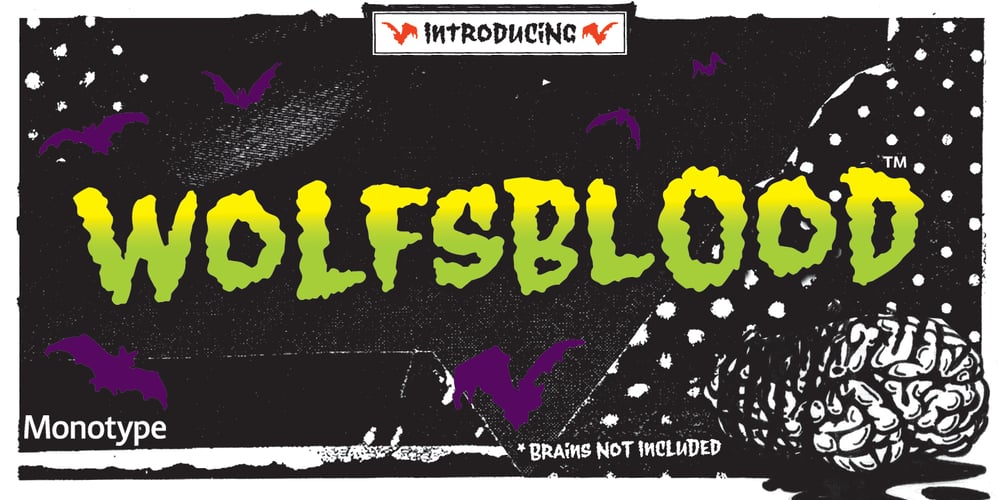
Wolfsblood Font Family was designed by Jim Ford and published by Monotype. Wolfsblood contains 1 styles and family package options. Wolfsblood is a new display face by Jim Ford, adapted from hand-lettered logos spawned by punk rock bands like The Misfits and Bad Brains. The style can be traced back further to Hollywood and the explosion of low-budget exploitation, horror and sci-fi films, which also had an influence in punk rock. Wolfsblood captures this bizarre dark-spirited lettering which has become a staple in the designer‘s work for bands and posters. The Wolfsblood font has an expanded character set with borders, dingbats (yes, Bats!), and contextual ligatures programmed to give the typeface a random appearance by default. As with some of Jim‘s other typographic experiments, Wolfsblood encourages the designer to play with upper and lowercase, and mixed-case settings, to replicate the decisions that a lettering artist might make. Wolfsblood is great for logos, posters, headlines and short bits of text, and will add a fun, aggressive energy to your dark and other-worldly creations.